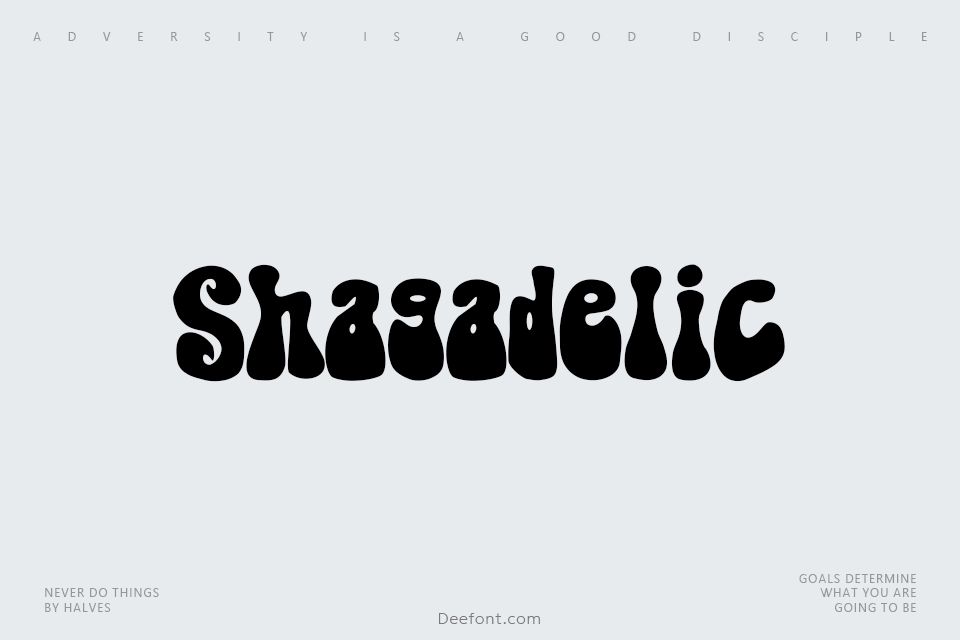
Shagadelic Font
Shagadelic is a groovy, retro-style display font characterized by its bold, thick letterforms and distinctive 1960s-1970s aesthetic. Designed by Digital Graphic Labs, this playful typeface features vibrant, expressive strokes that evoke a sense of fun and nostalgia. Perfect for headlines, posters, and creative projects that demand visual impact, Shagadelic brings authentic vintage charm and eye-catching appeal to any design. Its distinctive groovy character makes it ideal for retro-themed designs, music-related projects, and any creative work seeking a bold, memorable visual presence.